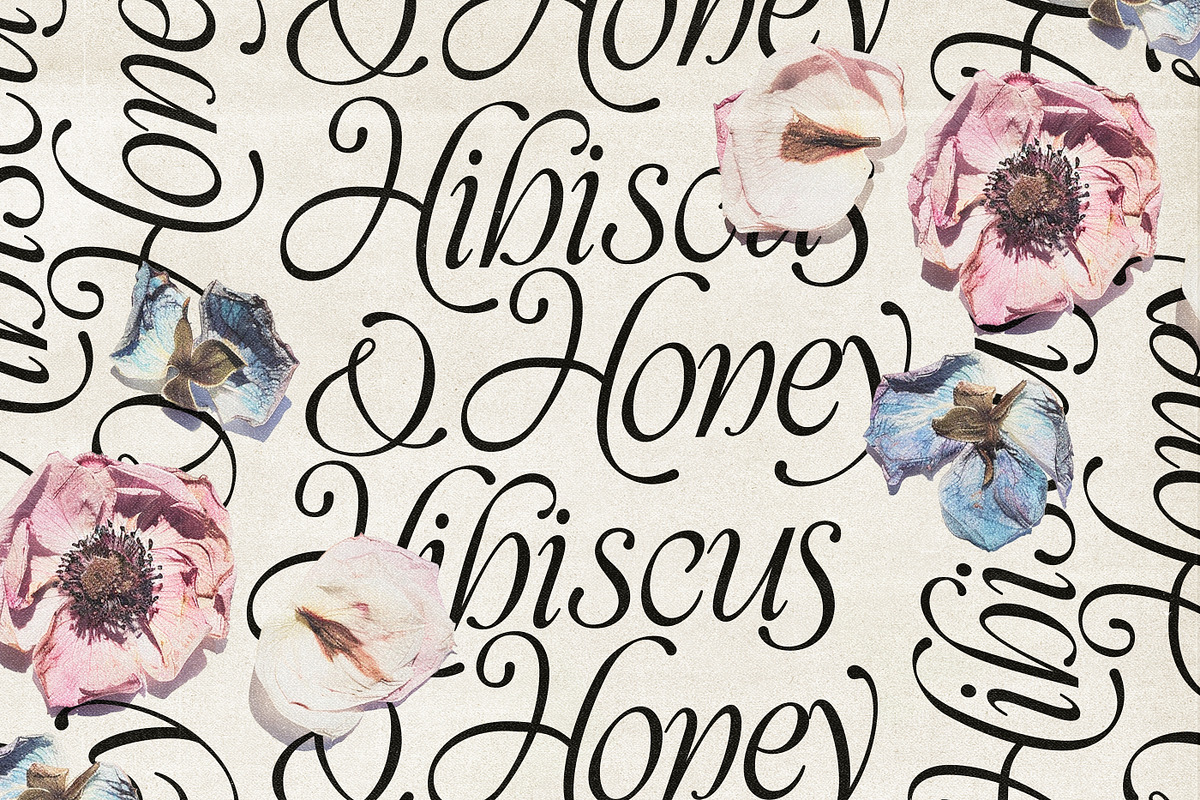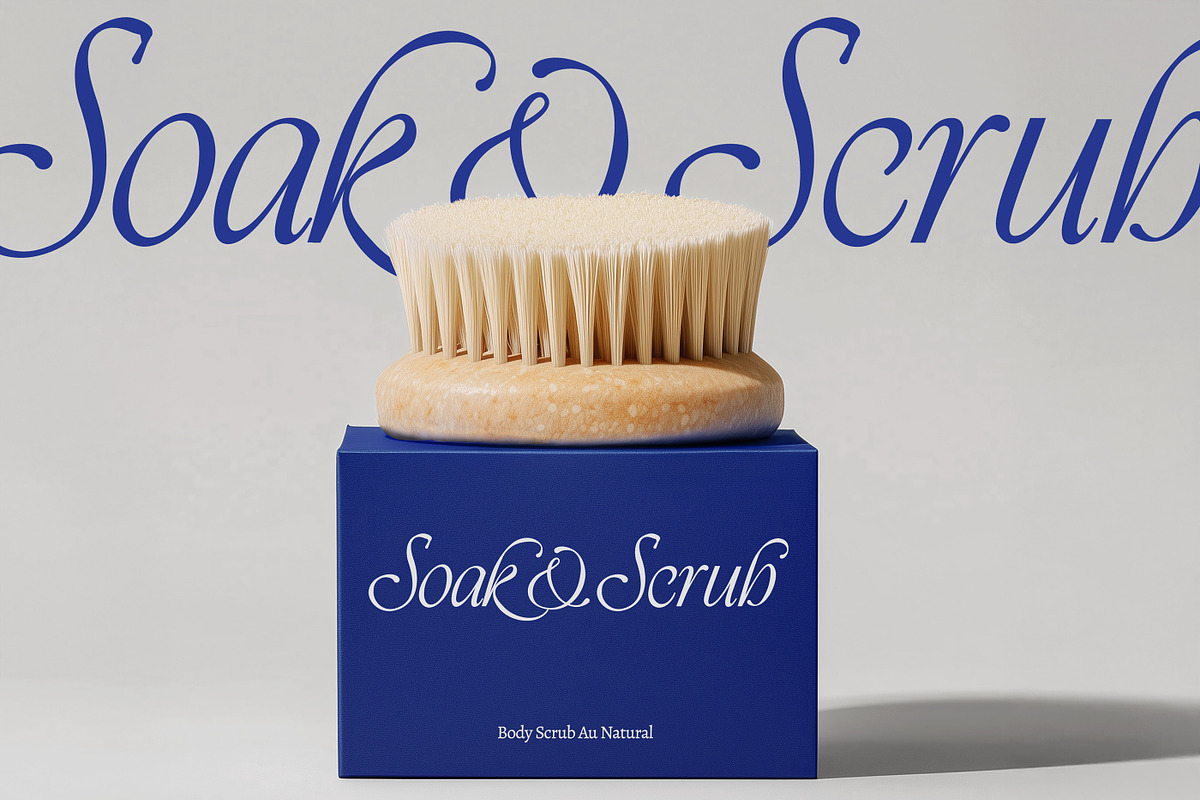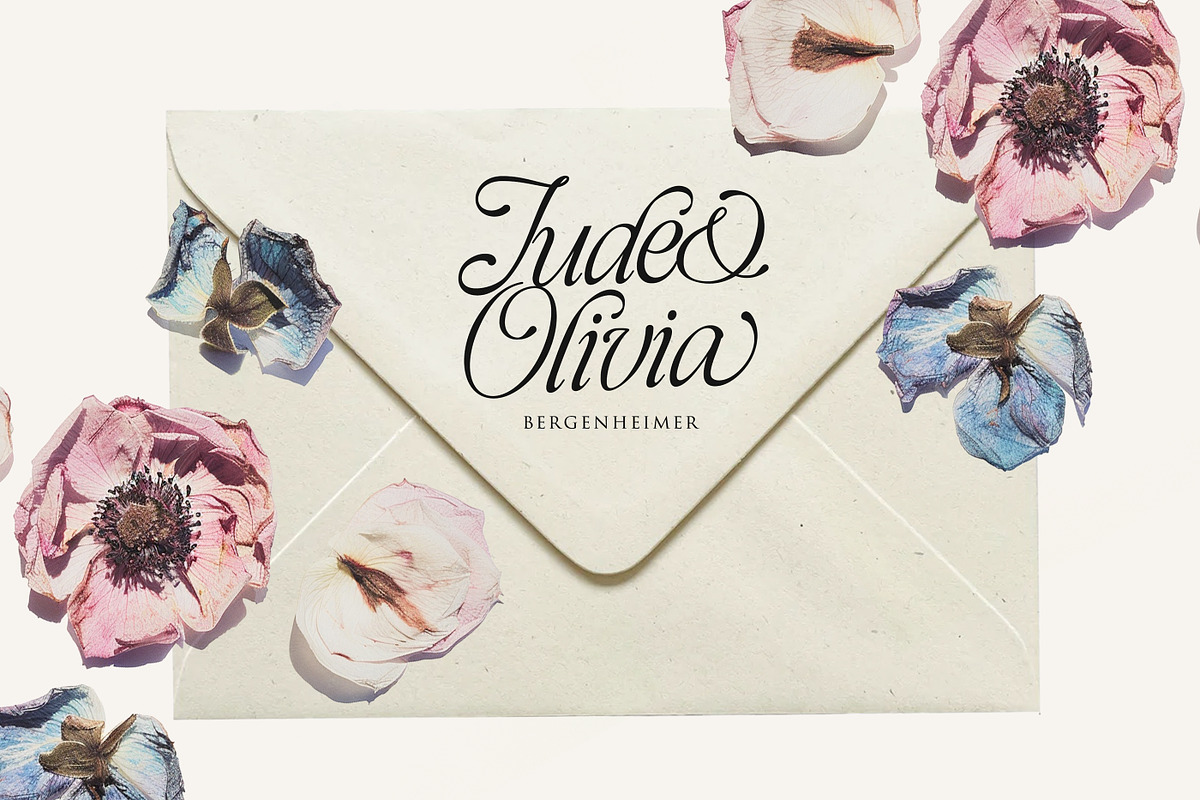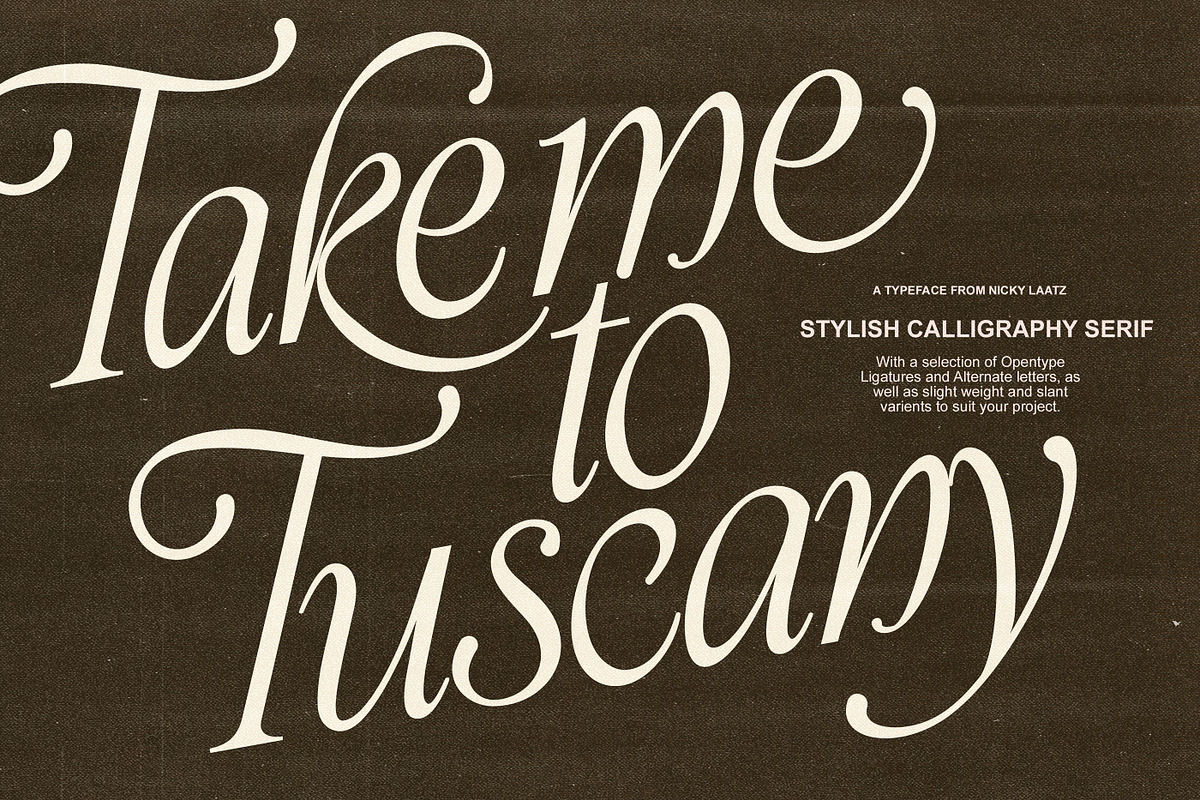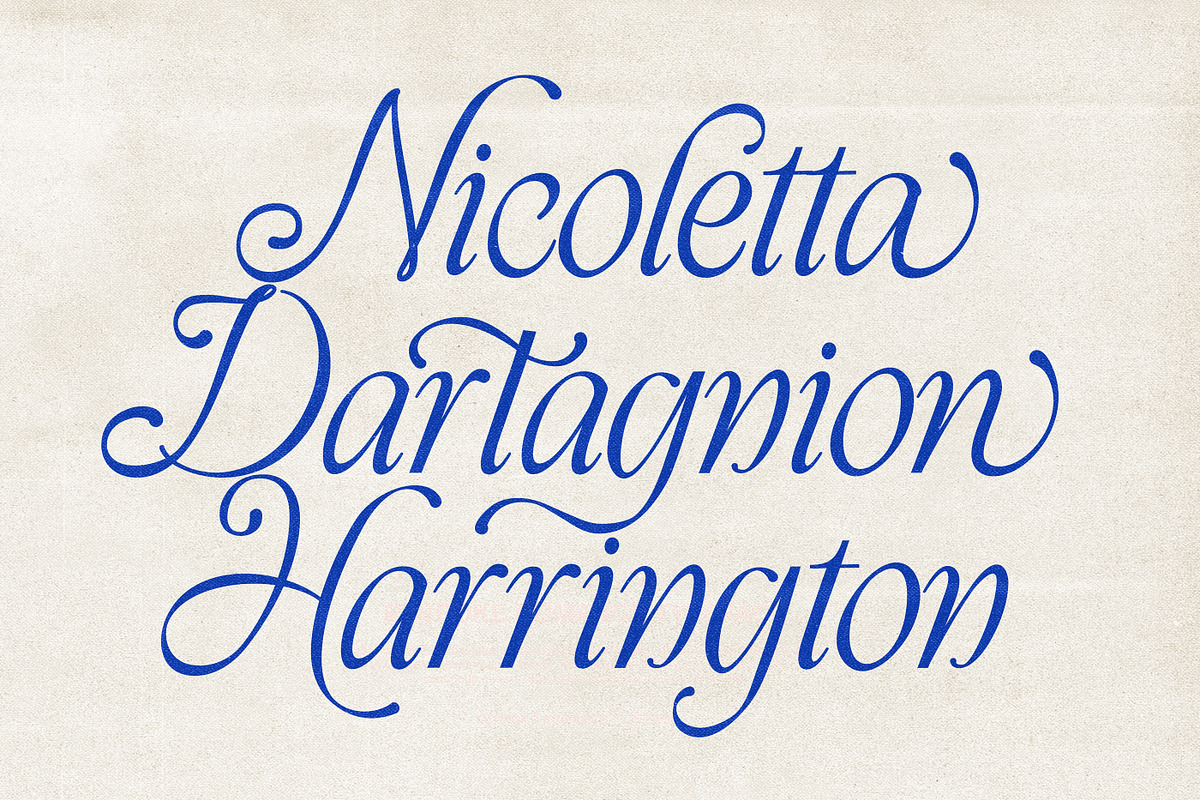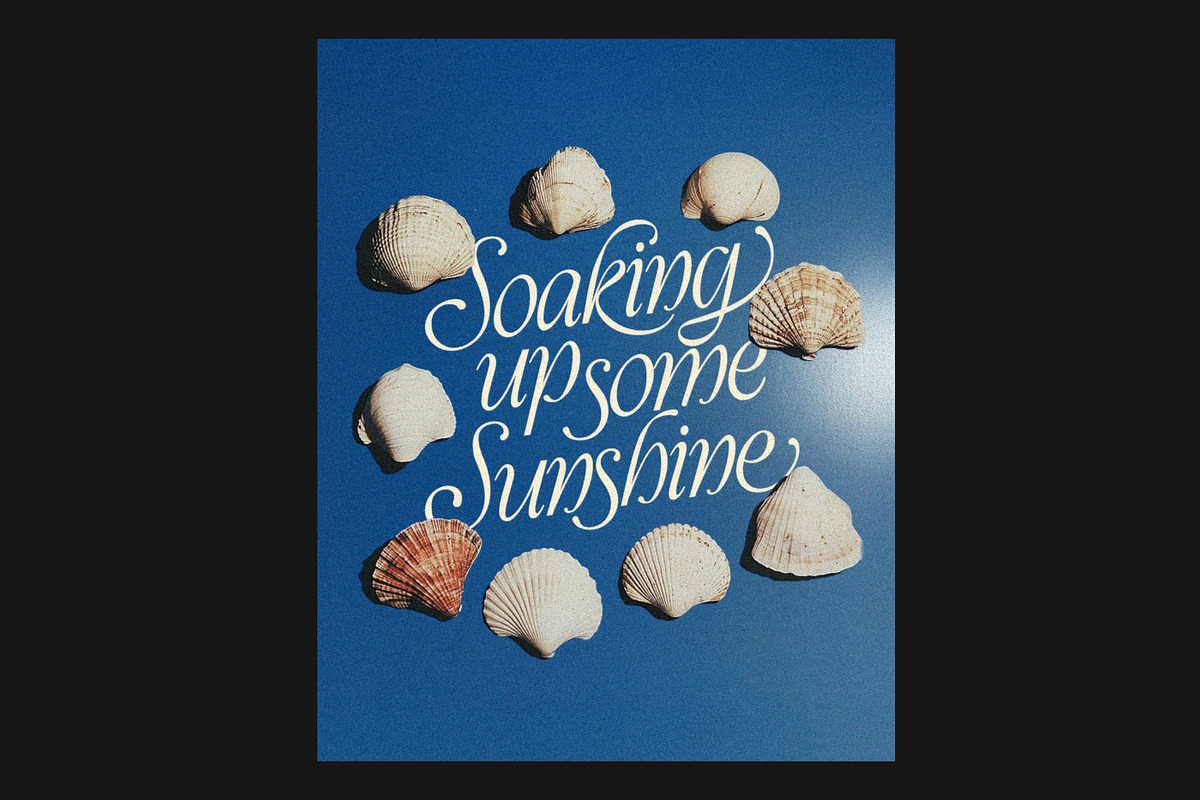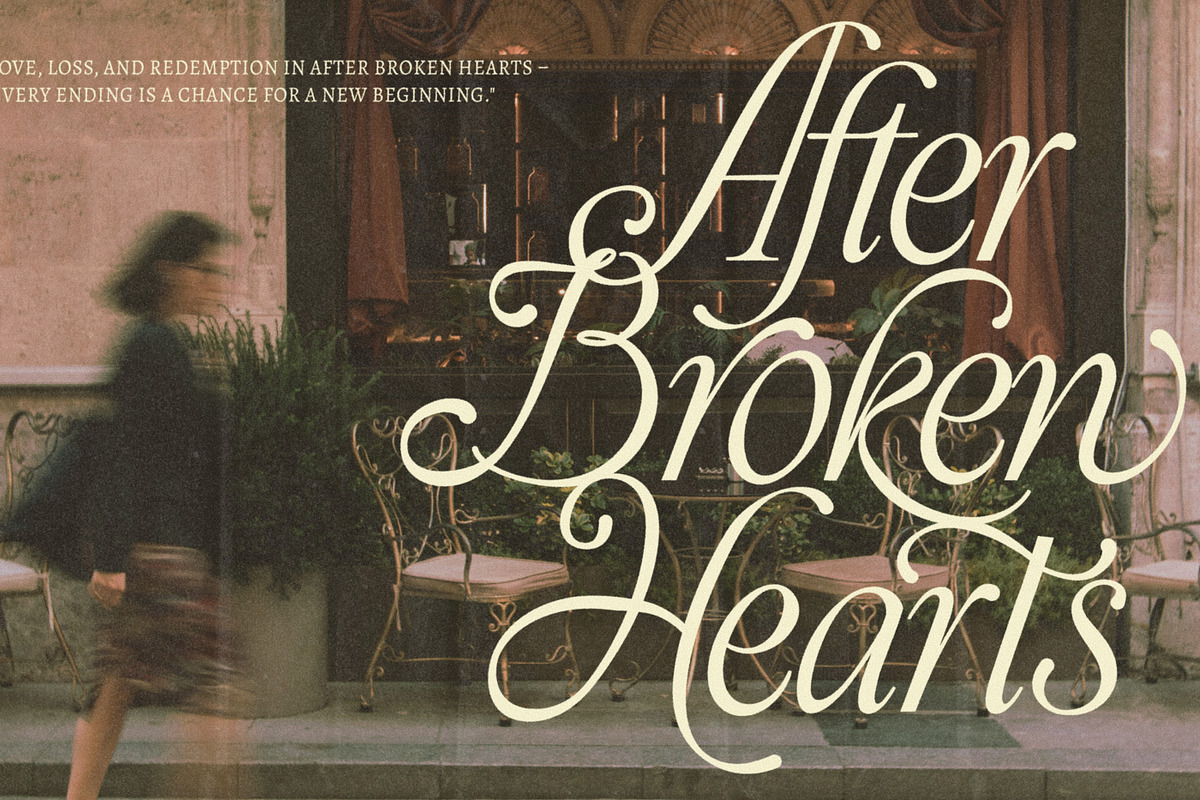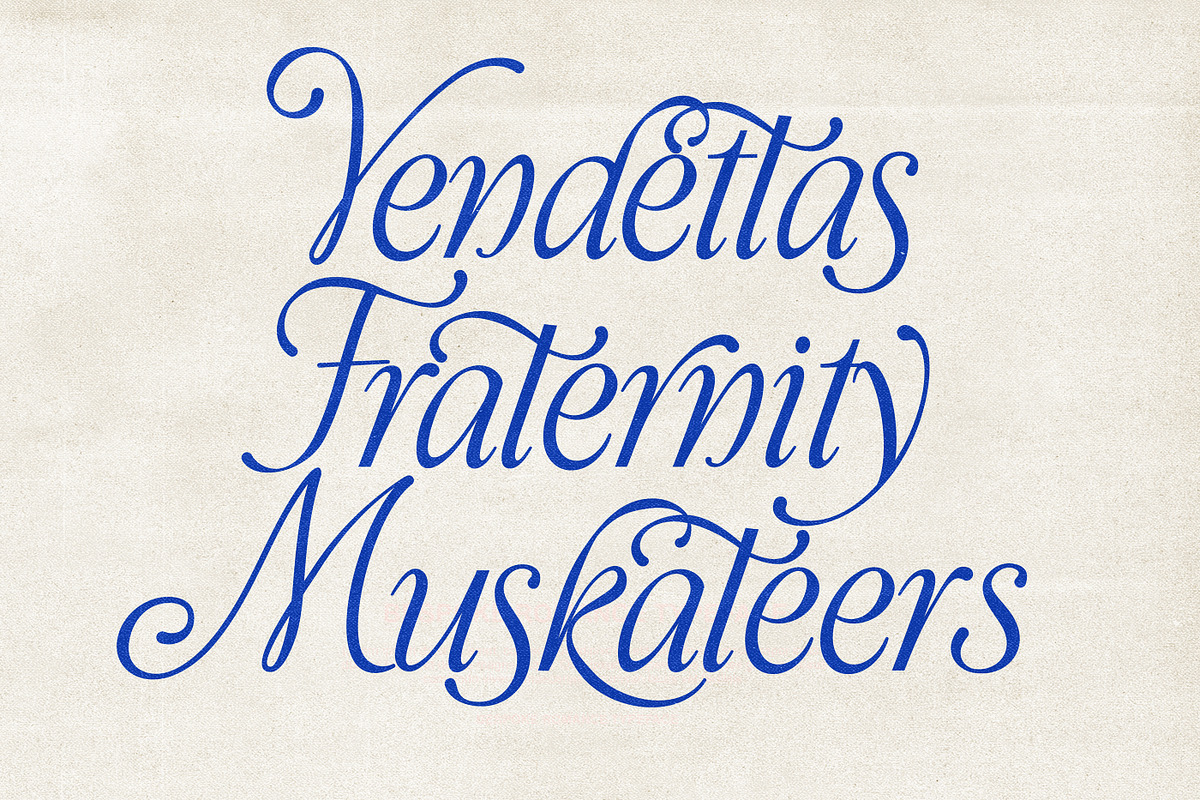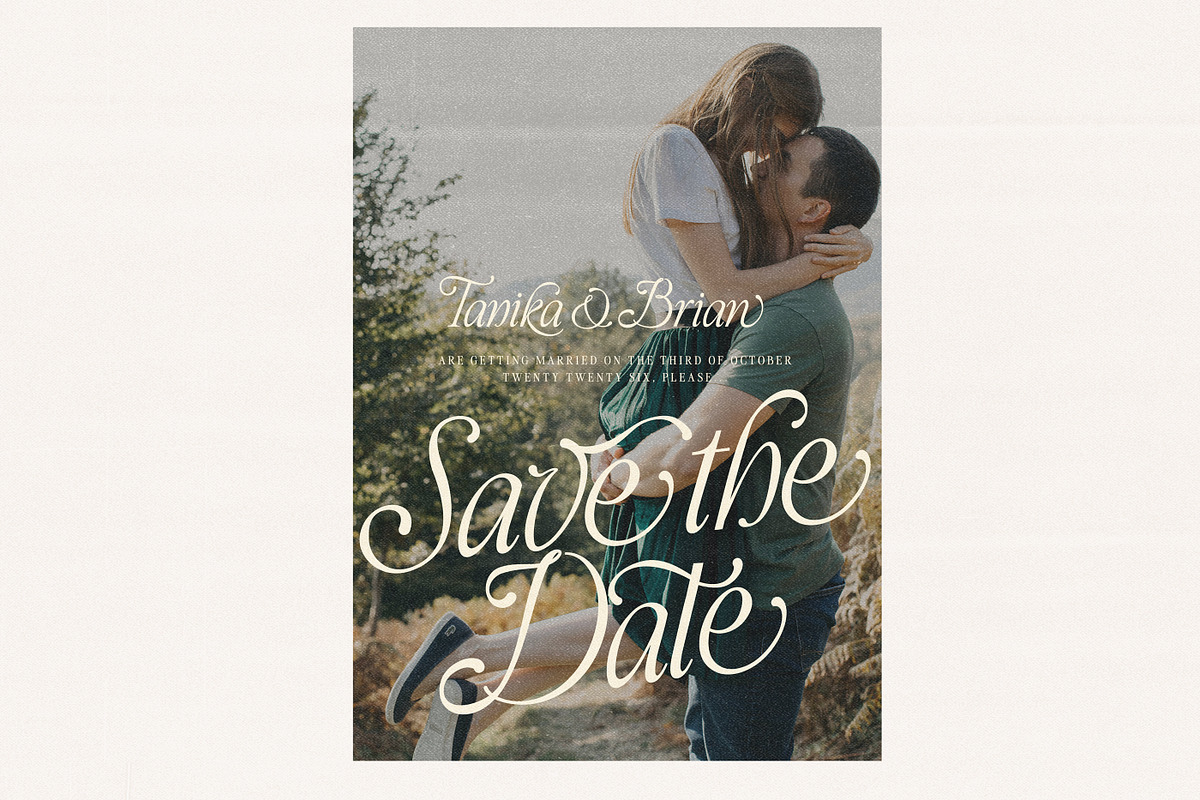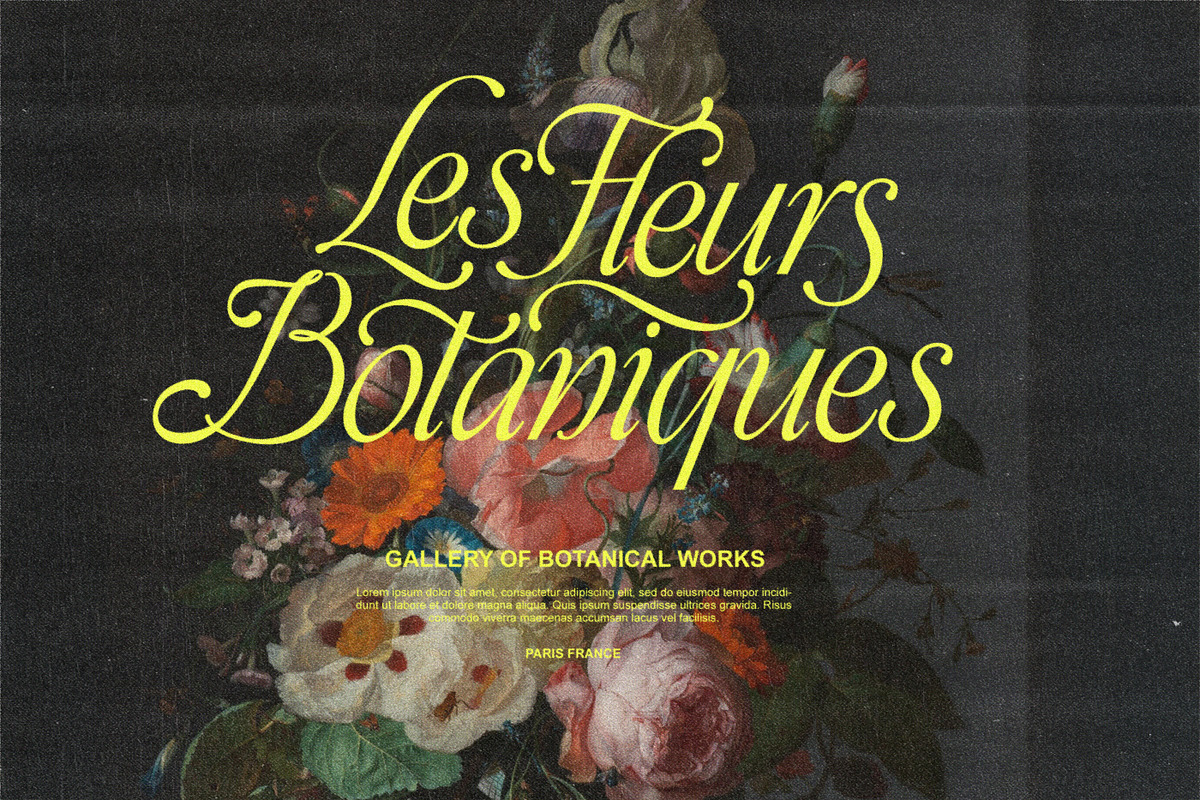
Take Me To Tuscany Typeface
Say hello to the regally romantic ‘Take Me To Tuscany’ Typeface - A new Calligraphy italicised serif with elegant curves, and delicate flourishes - designed to sweep you away with its extended strokes, exaggerated loops and decorative flourishes.
The letterforms are highly stylized with ornate swashes and delicate embellishments, reminiscent of classic handwritten scripts.
The flowing nature and careful balance between thick and thin strokes make it ideal for high-end branding, book covers, or prestigious invitations. Despite its decorative elements, the typeface maintains a strong sense of readability, thanks to its structured form and carefully proportioned letter spacing.
Perfect for... Luxury branding, such as fashion labels, perfumes, or premium event invitations. Ideal for editorial use, such as book covers, historical fiction, or elegant magazine mastheads. Great for identity design, particularly for classic or heritage brands, boutique logos, or exclusive membership-based organizations.
Overall, Take Me To Tuscany blends heritage with modern finesse, creating a timeless yet commanding typographic presence.
Bonus Variant Styles : The typeface has one main style, but for the perfectionist designer, I've added a few bonus variants that differ VERY slightly in weight, slant and a combination of both - to help fit your type design perfectly.
Opentype Alternates an ligatures :
Includes 82 Alternate letters and ligatures to add even more charisma to your type designs. PUA encoded for Canva users and those who don’t have Opentype Capable Software.